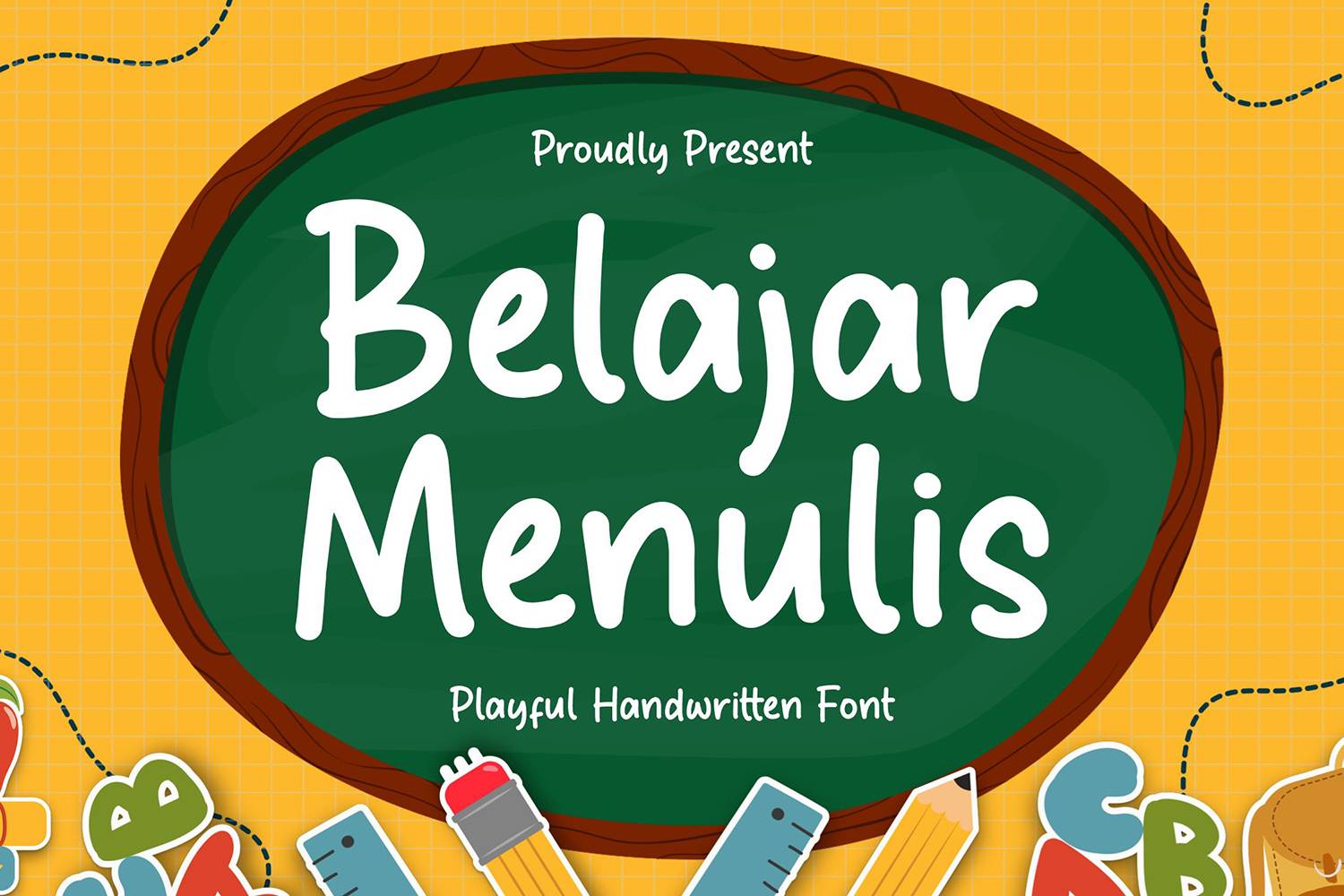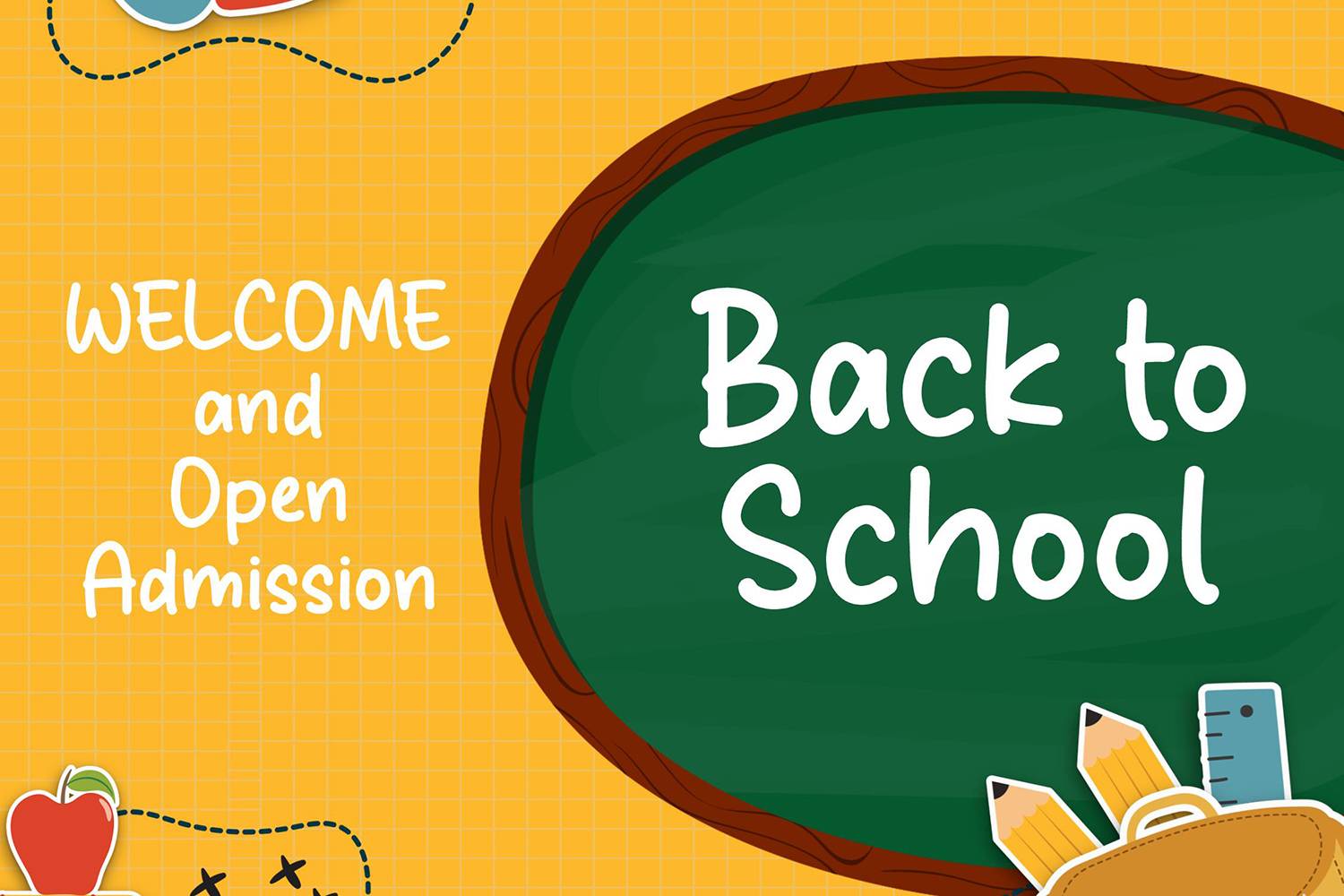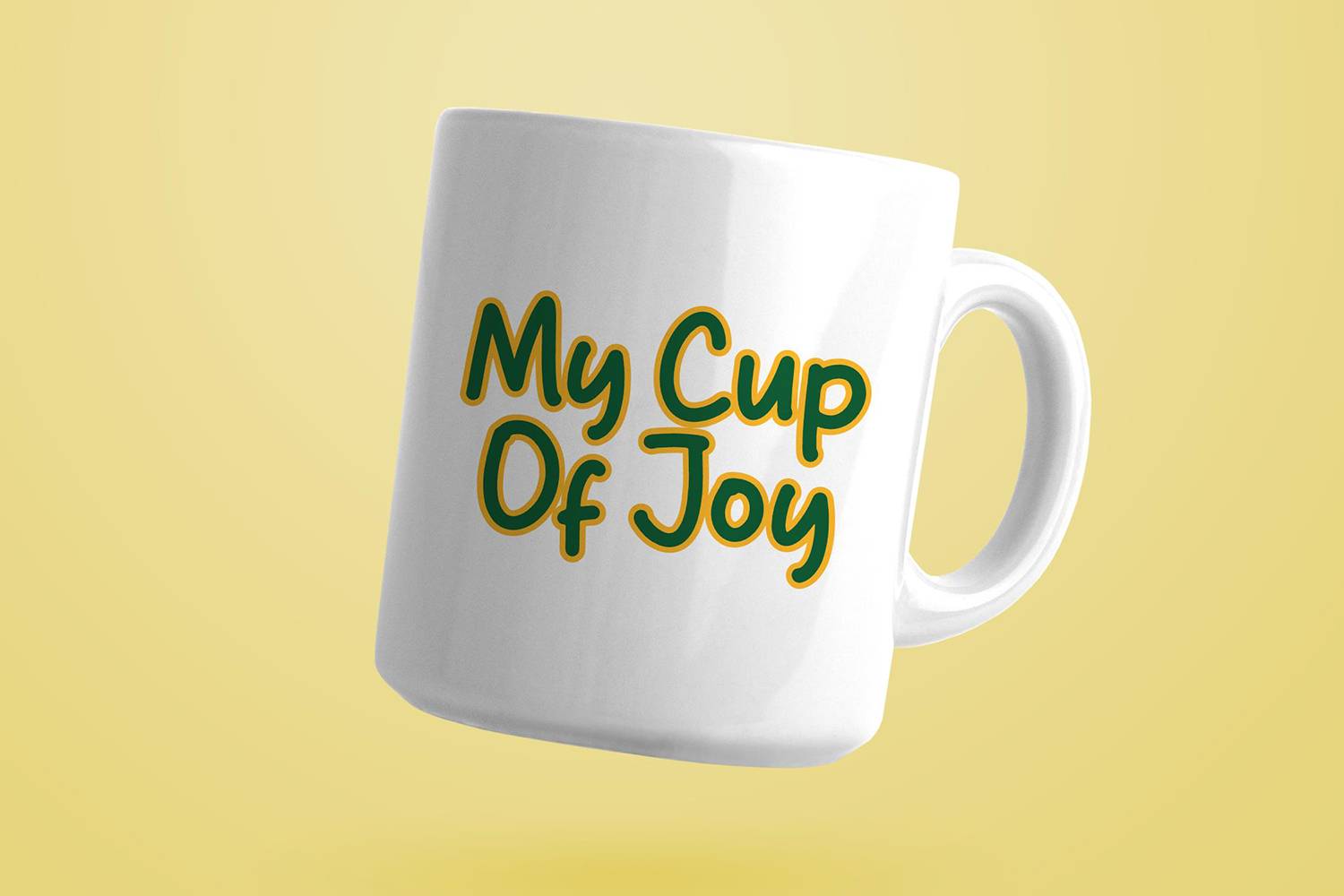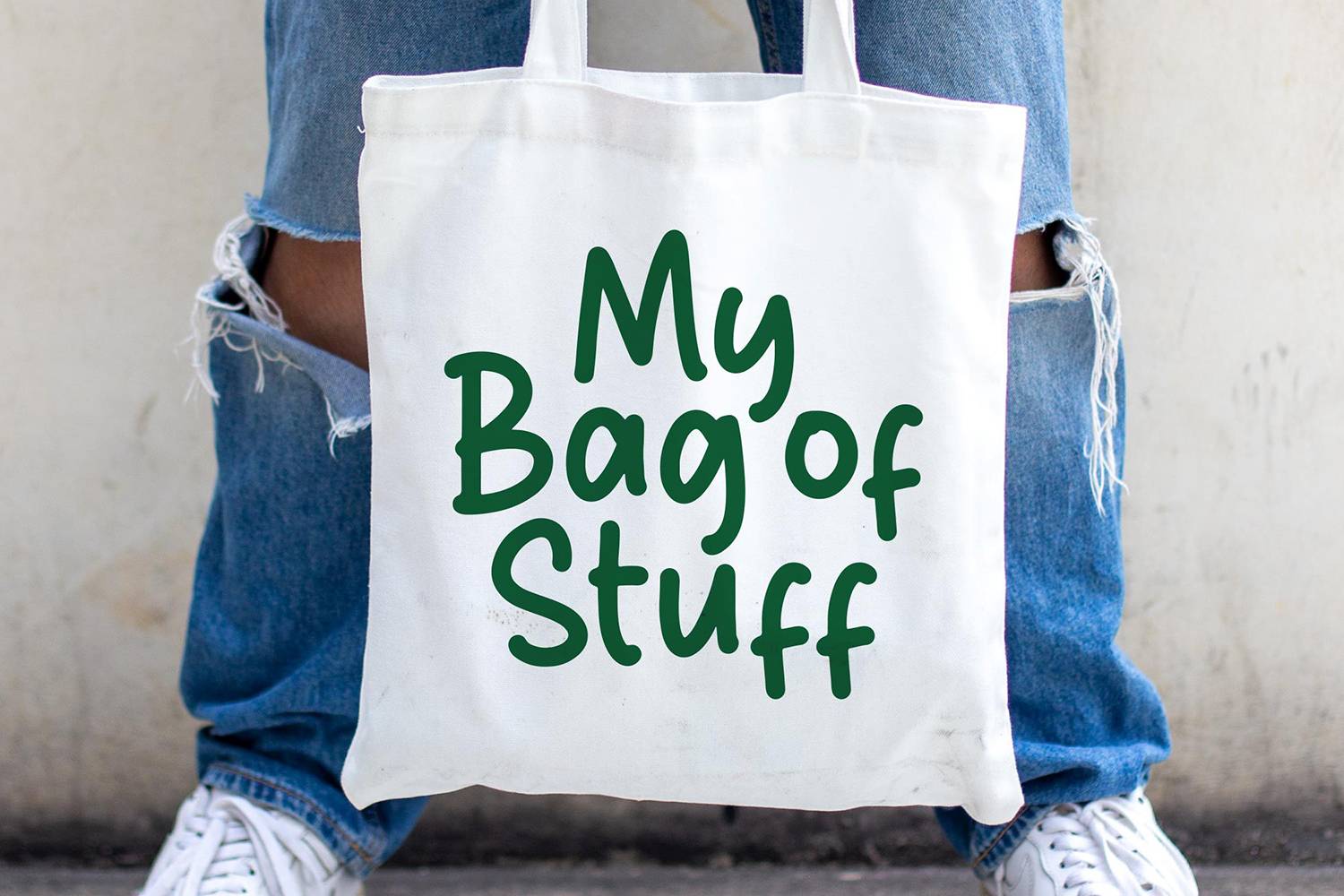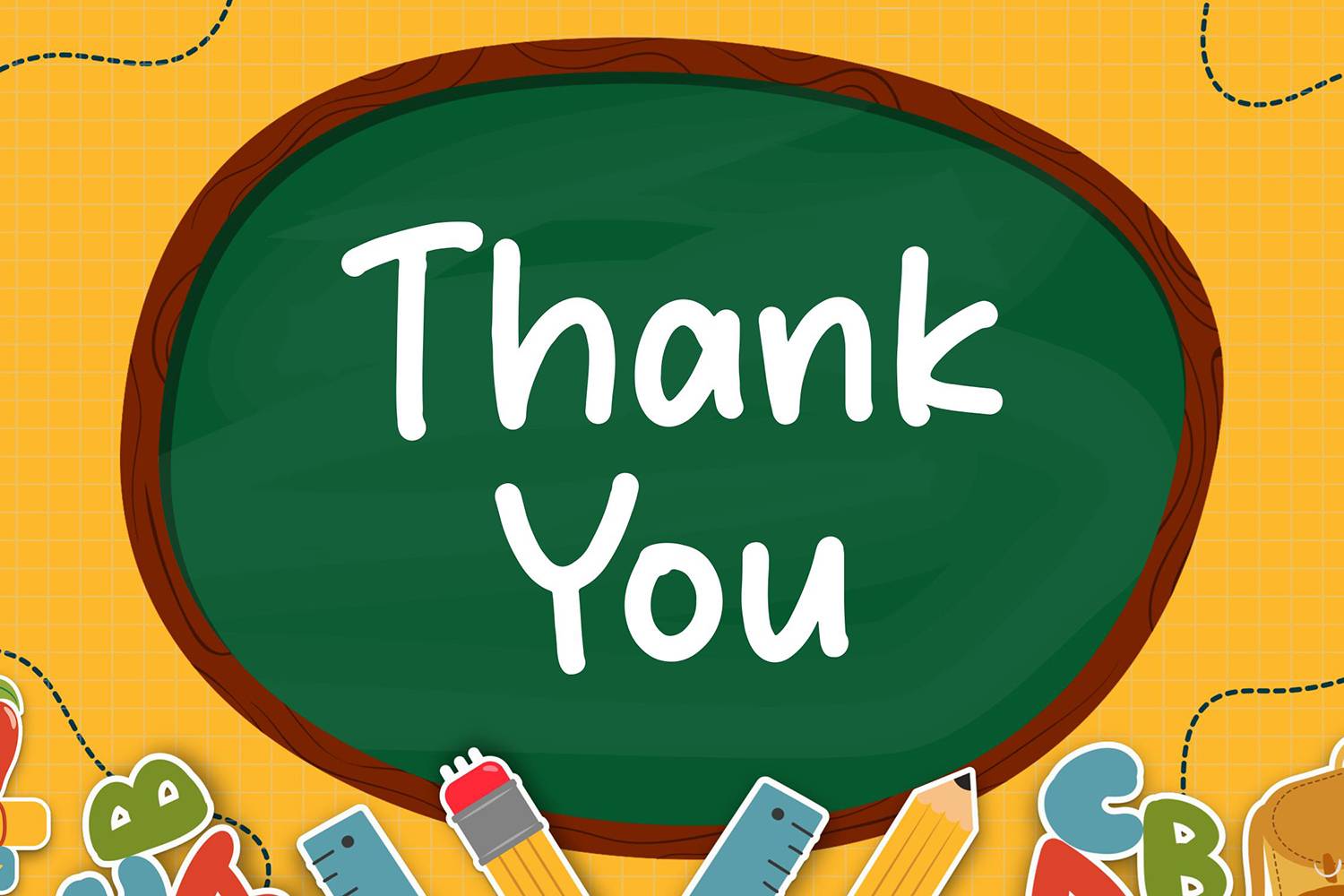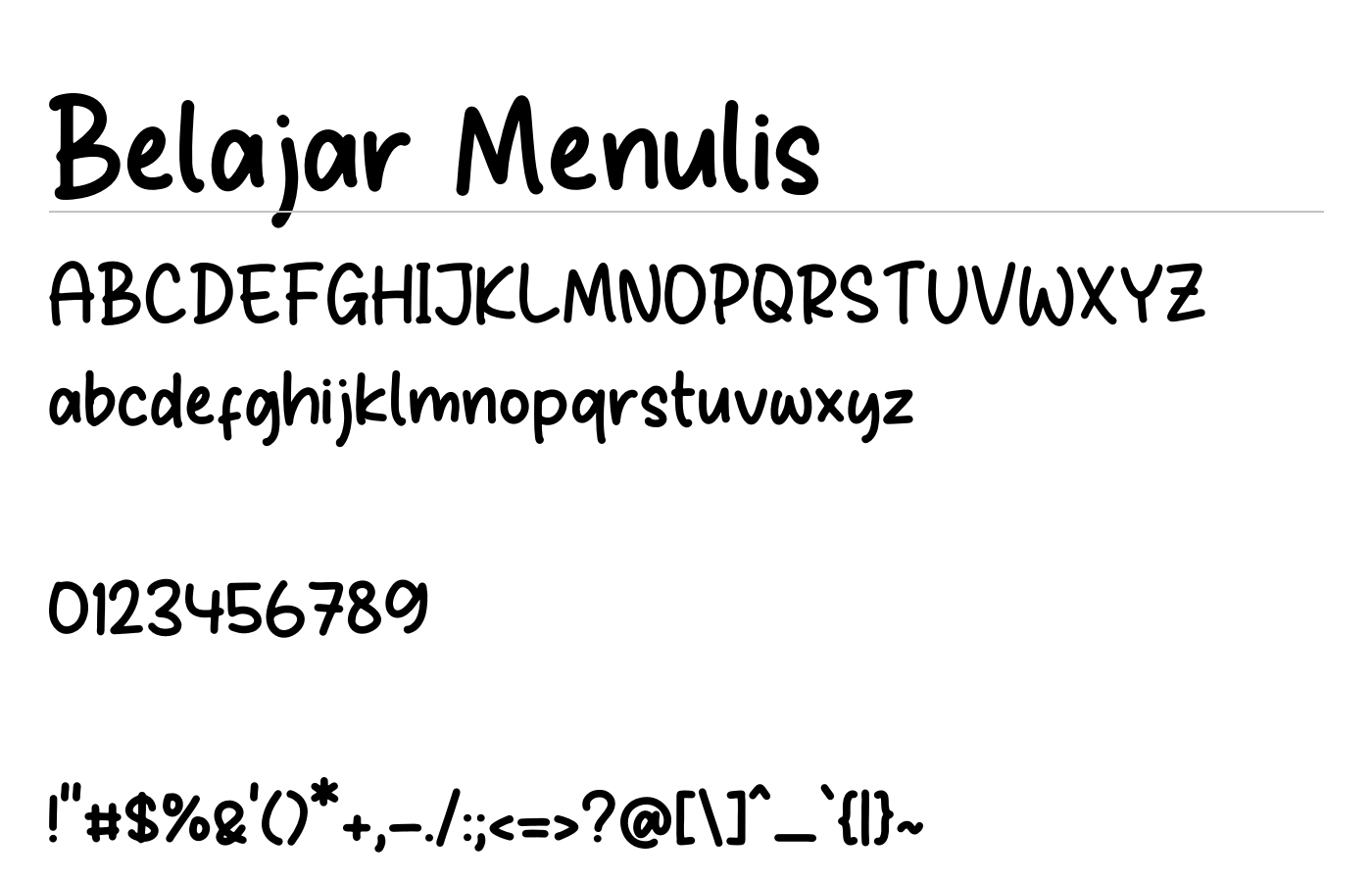
Belajar Menulis is a playful, casual handwritten font featuring a friendly and approachable style with rounded strokes and a consistent, medium weight. Its clear letterforms and informal charm make it ideal for educational materials, children's books, and creative projects where a warm and personal touch is desired. This font works well in both headlines and body text, lending a fun yet readable personality to any design.
Belajar Menulis Font